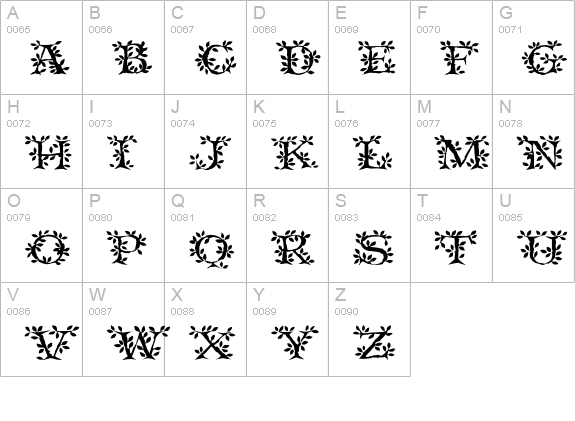
Tenderleaf-Caps Font Details
Introducing Tenderleaf-Caps, a captivating and elegant font that will add a touch of sophistication to any design project. With its delicate and graceful letterforms, this typeface exudes a sense of beauty and refinement. Tenderleaf-Caps is meticulously designed to bring a sense of harmony and balance to your typography. Its tall and slender characters are carefully crafted, creating a perfect equilibrium between thick and thin strokes. Each letter is infused with an air of grace and poise, resulting in a font that is both visually stunning and highly legible. This font is the epitome of versatility, making it suitable for a wide range of applications. From wedding invitations and branding projects to editorial designs and packaging, Tenderleaf-Caps will elevate your creations to new heights. One of the most remarkable features of Tenderleaf-Caps is that it is available for free! Yes, you read that right. This exceptional font can be freely downloaded at FontsMarket.com, allowing designers and creatives to access its beauty without any cost. Unleash your creativity and let Tenderleaf-Caps be the perfect companion for your next design endeavor. Its timeless elegance and effortless charm will captivate your audience and leave a lasting impression. Download Tenderleaf-Caps today and experience the power of this extraordinary font.